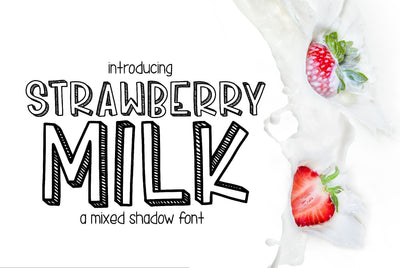
Strawberry Milk
Strawberry Milk is a great font to add to your collection. This font is all caps, that allows you to mix upper and lowercase letters to create a unique look.